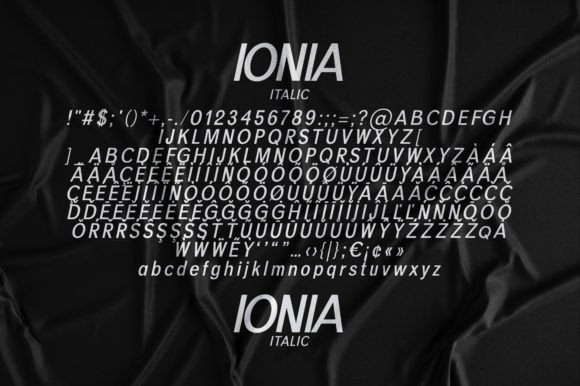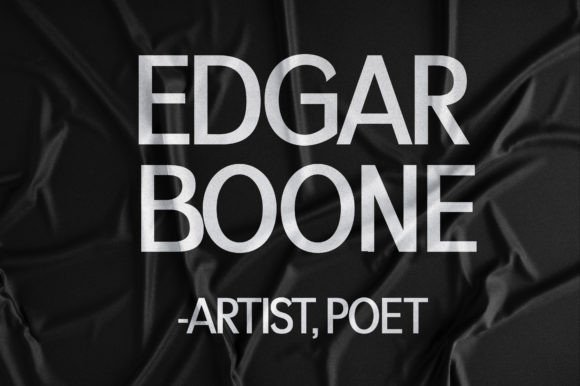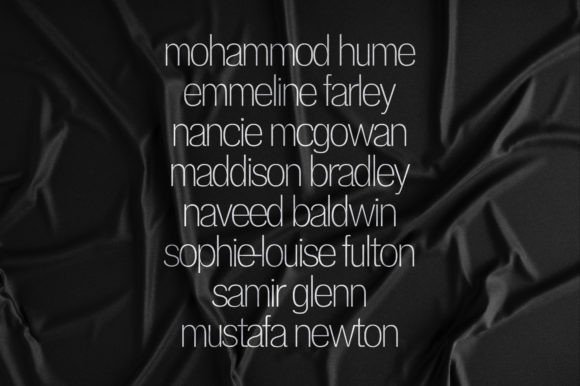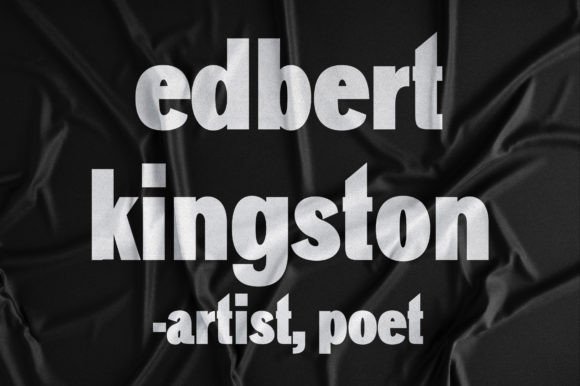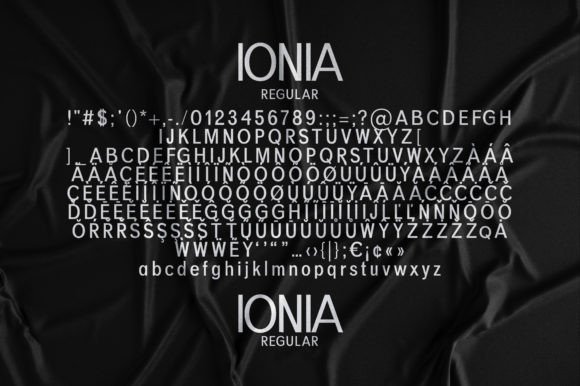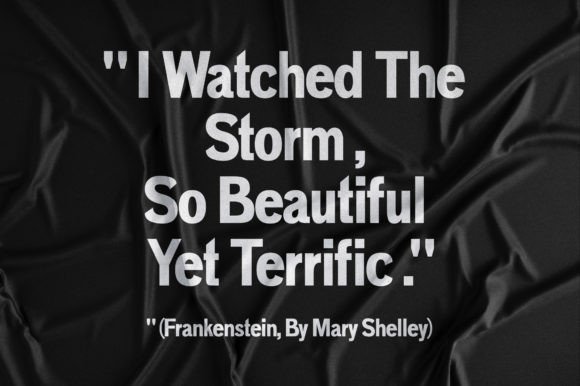
Introduction to Ionia Font
Have you ever stared at a blank page, trying to bring your creative vision to life, only to be halted by the perfect font? For many designers, the right font can be the difference between a good project and a great one. That’s where the Ionia Font family comes in – a classic grotesque sans serif font that’s sure to elevate your creative ideas.
With its roots in Swiss typeface design, the Ionia Font family exudes a sense of sophistication and style, making it an excellent choice for any project. Whether you’re working on a design project that requires a clean and modern aesthetic or simply need a reliable font for your next creative venture, the Ionia Font family is a valuable resource that’s sure to deliver high-quality results.
Key Features of Ionia Font
- High-quality design resource with a unique, elegant style perfect for creative projects.
- Includes multiple font styles and weights, providing designers with a versatile tool for their creative project.
- Supports a wide range of languages, making it an excellent choice for international design projects.
Honest Review: Ionia Font
I recently had the chance to work with the Ionia Font, and I must say it’s been a game-changer for my design projects. As a creative professional, I’m always on the lookout for high-quality design resources that can elevate my work. The Ionia Font has definitely delivered.
However, there are a few limitations: ⚠️ The font might not be suitable for very large-scale projects, as it can be a bit heavy. ⚠️ The character set is not as extensive as some other fonts, which can be a drawback for designers who need a wide range of characters.
The Ionia Font is ideal for a variety of creative projects, including branding, logos, and typography-based designs. Its unique style and high-quality design make it a popular choice among designers and artists.